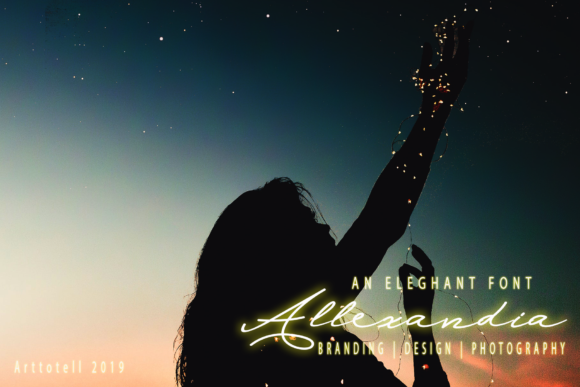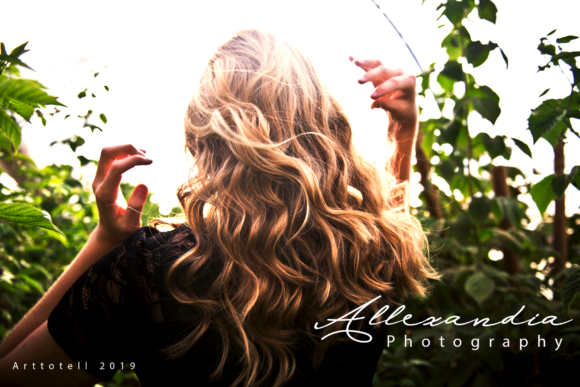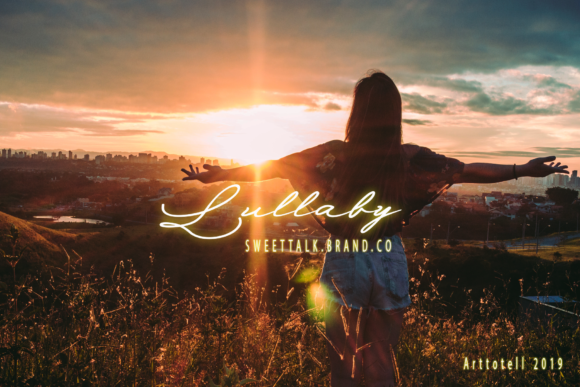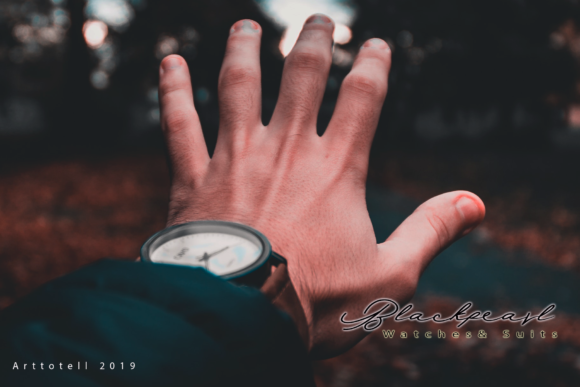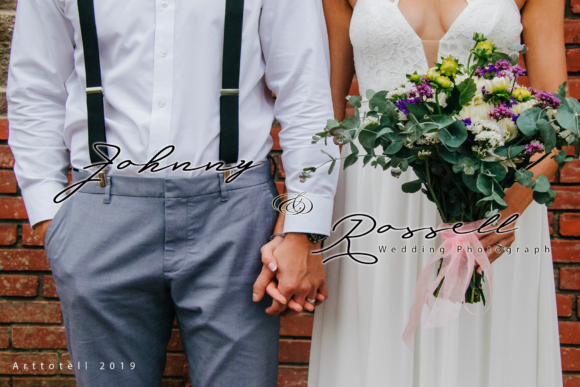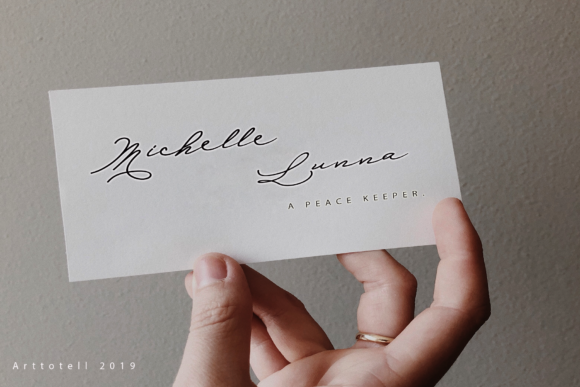
Introducing Allexandia Font: Elevate Your Designs with Elegant Calligraphy
Are you a designer or crafter looking for a beautiful and versatile font to elevate your creative projects? Look no further than Allexandia Font, a stunning handwritten font that exudes natural elegance and sophistication. With its stylish signature style and four unique styles, Allexandia Font offers endless possibilities for creating unique designs that capture attention and leave a lasting impression.
The Beauty of Allexandia Font
Allexandia Font is a masterpiece of calligraphy, boasting a natural and elegant look that is perfect for a wide range of design applications. Its stylish signature style adds a touch of sophistication to any project, making it ideal for designers and crafters who want to create high-end visuals. Whether you’re working on a logo, heading, or wedding invitation, Allexandia Font is sure to impress.
Four Unique Styles to Unlock Endless Possibilities
One of the standout features of Allexandia Font is its versatility. With four unique styles to choose from, you can create multiple designs in an instant, each with its own distinct character. This means you can experiment with different looks and feels, from elegant and refined to bold and playful, without having to invest in multiple fonts. Whether you’re a seasoned designer or a crafty DIY enthusiast, Allexandia Font offers the flexibility you need to bring your creative vision to life.
Endless Design Applications
So what can you create with Allexandia Font? The possibilities are endless! Here are just a few ideas to get you started:
- Headings and Titles: Add a touch of elegance to your blog posts, articles, and website headings with Allexandia Font.
- Signatures and Logos: Create stunning signatures and logos that make a lasting impression.
- Wedding Invitations: Make your special day even more memorable with beautiful, handcrafted wedding invitations featuring Allexandia Font.
- T-Shirts and Merchandise: Design eye-catching t-shirts, mugs, and other merchandise that showcase your creativity.
- Letterheads and Stationery: Elevate your business correspondence with stylish letterheads and stationery.
- Signage and Labels: Create eye-catching signage and labels that grab attention.
- News and Posters: Add a touch of sophistication to your news articles and posters with Allexandia Font.
- Badges and Awards: Design stunning badges and awards that recognize achievements and milestones.
Why Choose Allexandia Font?
So why should you choose Allexandia Font for your design projects? Here are just a few compelling reasons:
- Unique and Versatile: With four unique styles to choose from, Allexandia Font offers endless possibilities for creative expression.
- Elegant and Sophisticated: Allexandia Font exudes natural elegance and sophistication, making it perfect for high-end designs.
- High-Quality Design: Allexandia Font is designed to the highest standards, ensuring crisp and clear rendering on any device or platform.
In conclusion, Allexandia Font is a beautiful and versatile handwritten font that offers endless possibilities for designers and crafters. With its stylish signature style, four unique styles, and wide range of design applications, Allexandia Font is the perfect choice for anyone looking to elevate their creative projects. Whether you’re working on a logo, wedding invitation, or t-shirt design, Allexandia Font is sure to impress. So why wait? Download Allexandia Font today and unlock a world of creative possibilities!